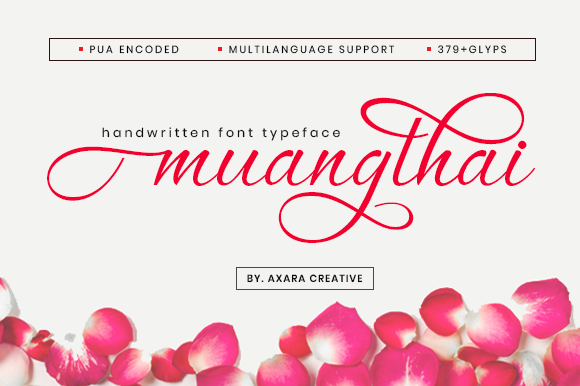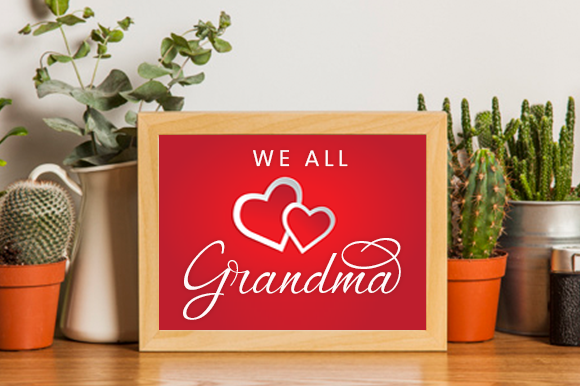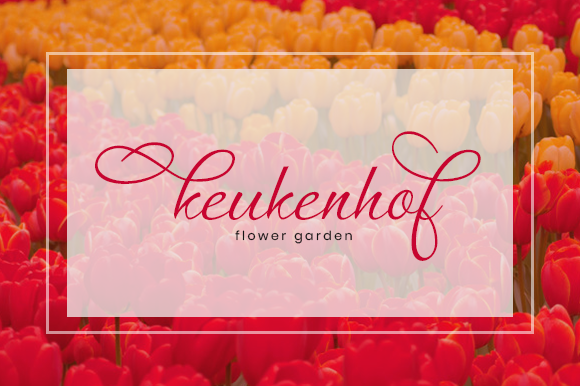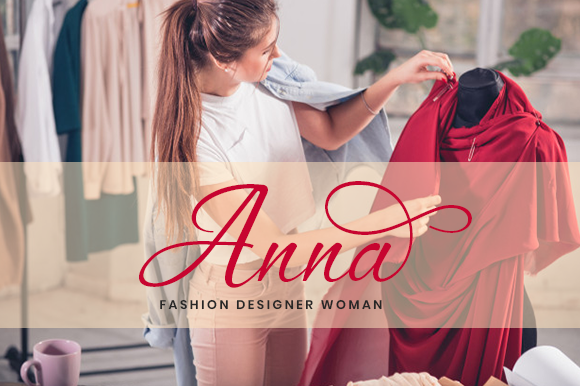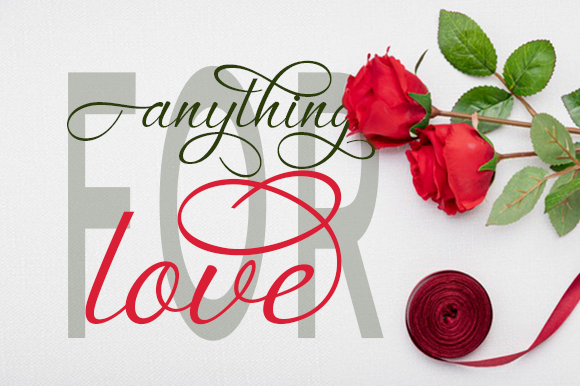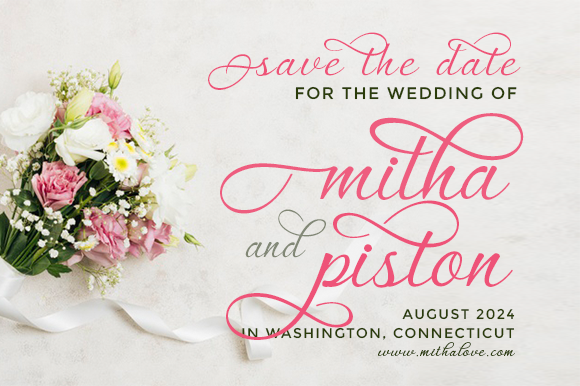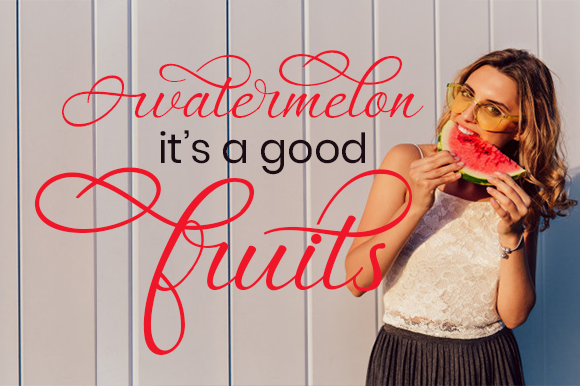
Muangthai Font
About Muangthai Font
Muangthai script is feels equally charming and elegant. This stunning handwritten font is a stylish homage to classic calligraphy and will take your project to the next level!